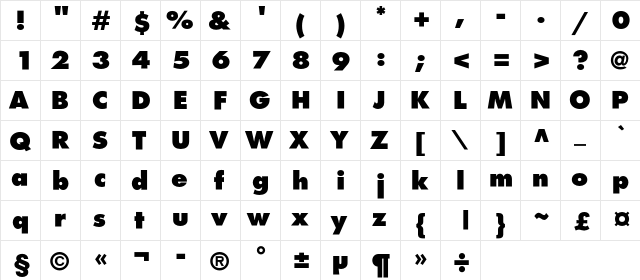
AGFatumExtraBoldC Regular
Design Context for AGFatumExtraBoldC Typeface
AGFatumExtraBoldC is a composed and adaptable typeface that performs quietly and consistently across a wide range of design contexts. Its bold stroke weight gives it real presence on the page.